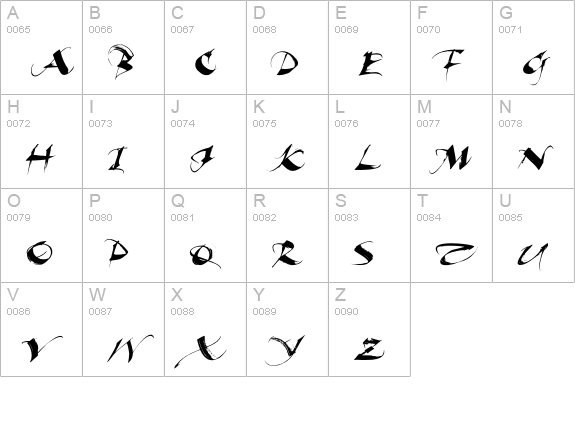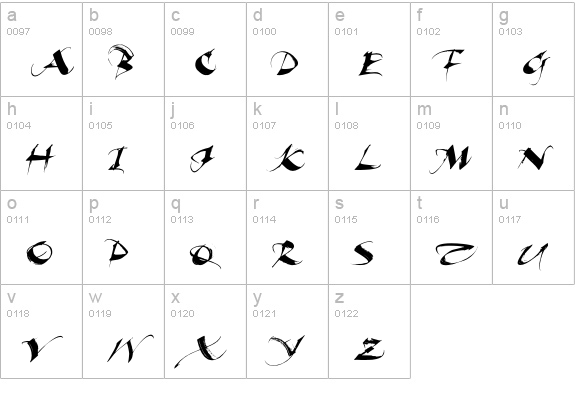
BeautifulInk font is a stunning display typeface that exudes elegance and sophistication. Its intricate strokes and ornate details make it perfect for adding a touch of luxury to your designs. The flowing lines and unique flourishes of BeautifulInk create a sense of timeless beauty that will captivate your audience. Whether you're designing invitations, branding materials, or special event signage, this font is sure to make a statement. The best part? BeautifulInk is available for free download at FontsMarket.com. Now you can elevate your projects with this exquisite font without breaking the bank. Don't miss out on the opportunity to add a touch of beauty to your designs with BeautifulInk. Download it today and let your creativity soar!